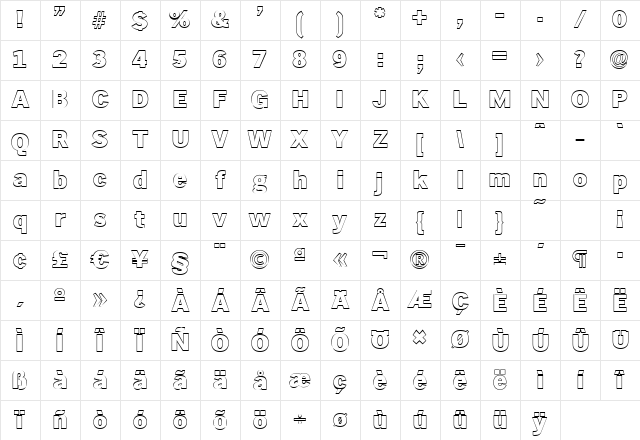
StephenBeckerOutline-Heavy Regular
Design Context for StephenBeckerOutline-Heavy
StephenBeckerOutline-Heavy is built around its visual character rather than neutral utility - its distinctive forms are designed to make an impression at display sizes.
Font Pairing: Pair with a clean neutral sans-serif for body copy to let StephenBeckerOutline-Heavy's character lead without overwhelming the composition.
Pro Tip: Use StephenBeckerOutline-Heavy exclusively at display sizes - it was designed to be seen, not read at length. Let a neutral companion handle body copy.